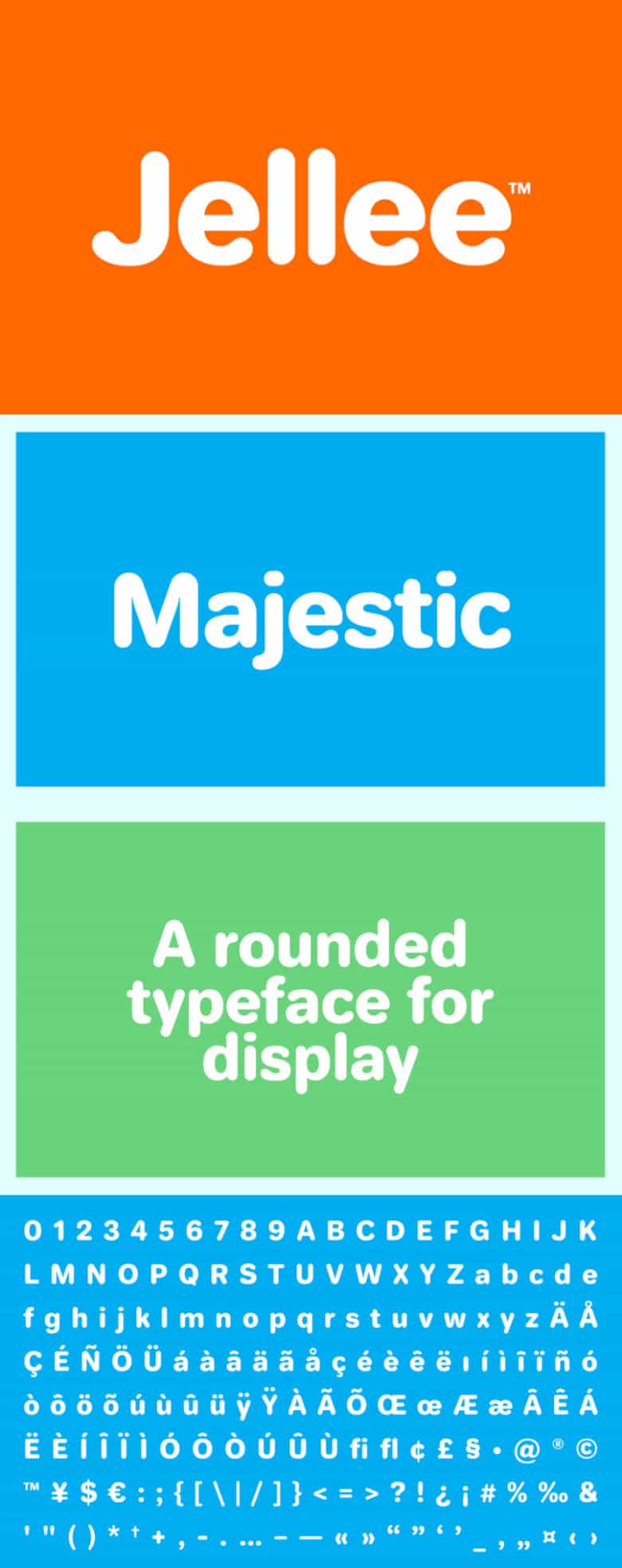
The Jellee typeface was developed to be simple yet utterly classy – a style that complements creative projects of any kind. This less decorative sans serif font is yet perfect for your designs and will give them that extra special touch!